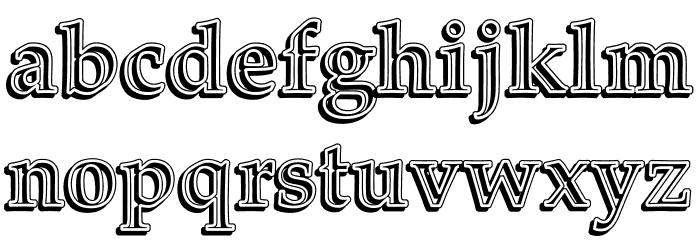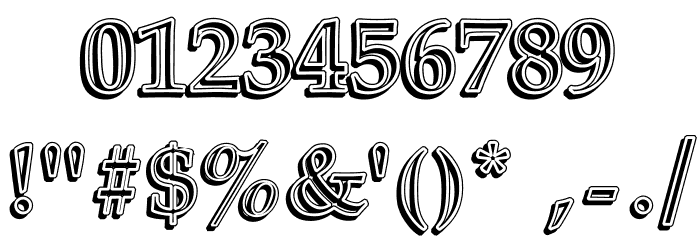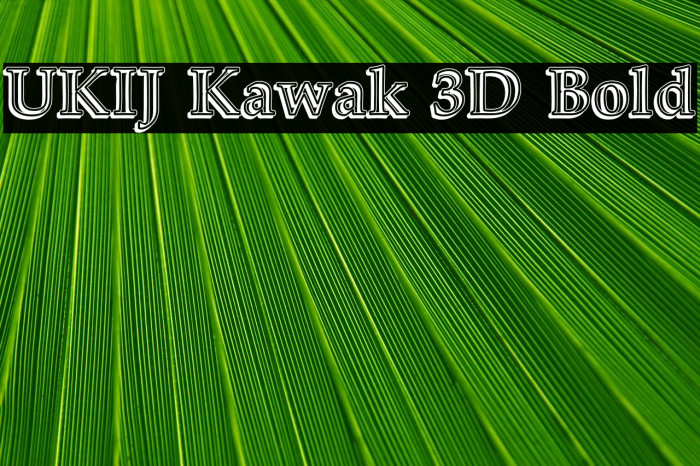
UKIJ Kawak 3D Bold Font
This font features a bold, three-dimensional style with a strong presence. The letters are outlined with a shadow effect that gives them a layered, embossed appearance. The strokes are thick and consistent, providing a sense of solidity and impact. The uppercase and lowercase letters maintain a uniform style, with clean lines and a slight serif that adds a touch of elegance. The numbers and special characters are designed to match the boldness and dimensionality of the alphabet, ensuring a cohesive look across all characters. This font is ideal for making statements, as its bold and dynamic style draws attention and adds depth to any text.
A bold, 3D serif font with a strong, embossed appearance.
- Proposed Projects: Ideal for posters, headlines, logos, and any design requiring a bold, eye-catching font.